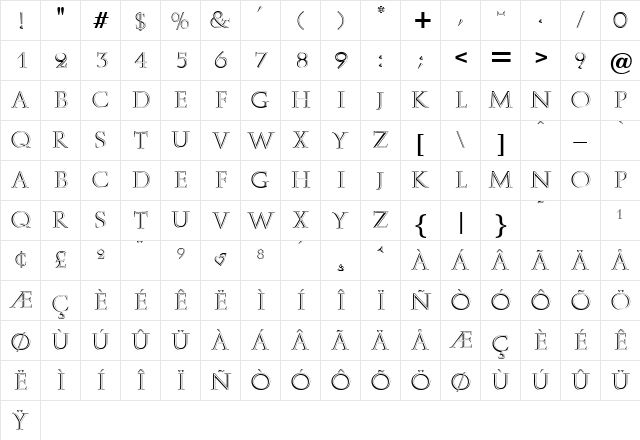
AmammaInline Regular
Design Context for AmammaInline Typeface
AmammaInline is built around its visual character rather than neutral utility — its distinctive forms are designed to make an impression at display sizes.
Font Pairing: Pair with a clean neutral sans-serif for body copy to let AmammaInline's character lead without overwhelming the composition.
Pro Tip: Use AmammaInline exclusively at display sizes — it was designed to be seen, not read at length. Let a neutral companion handle body copy.